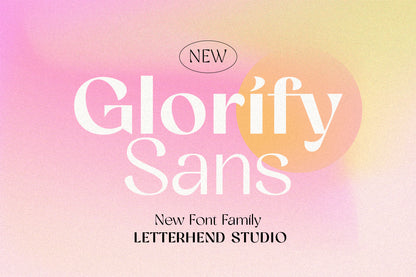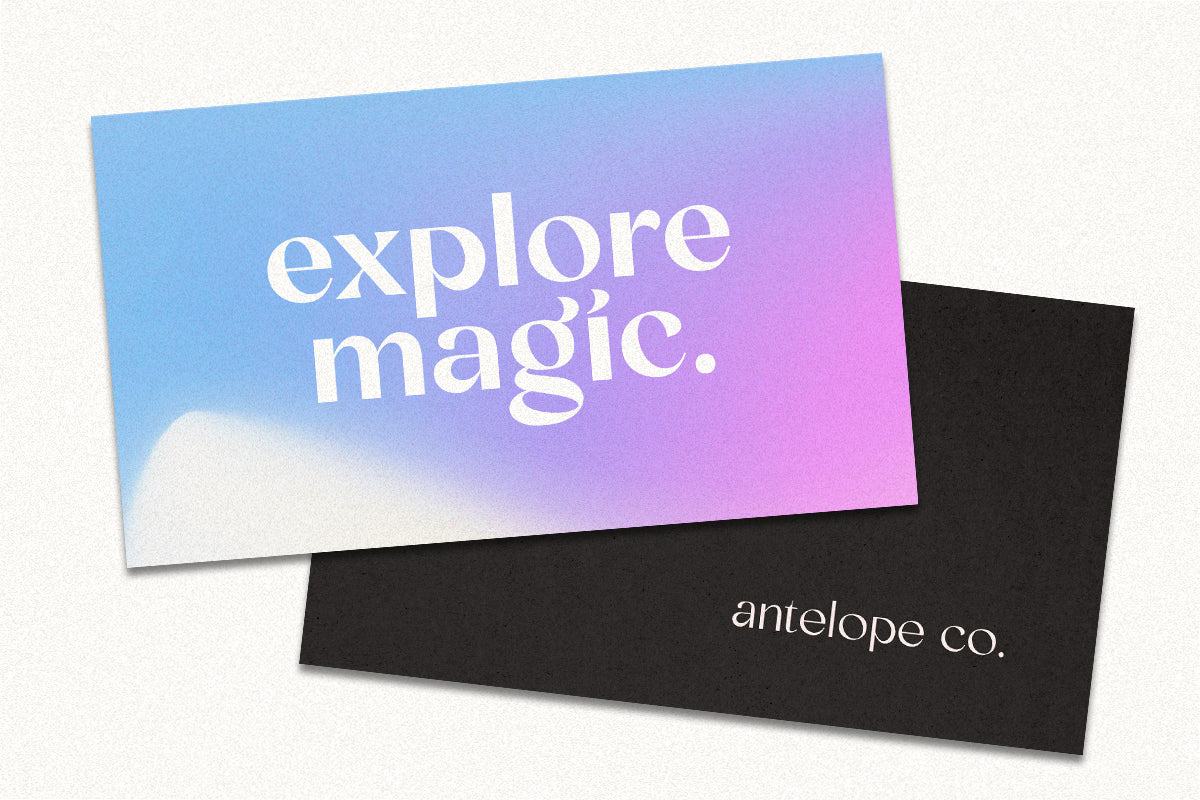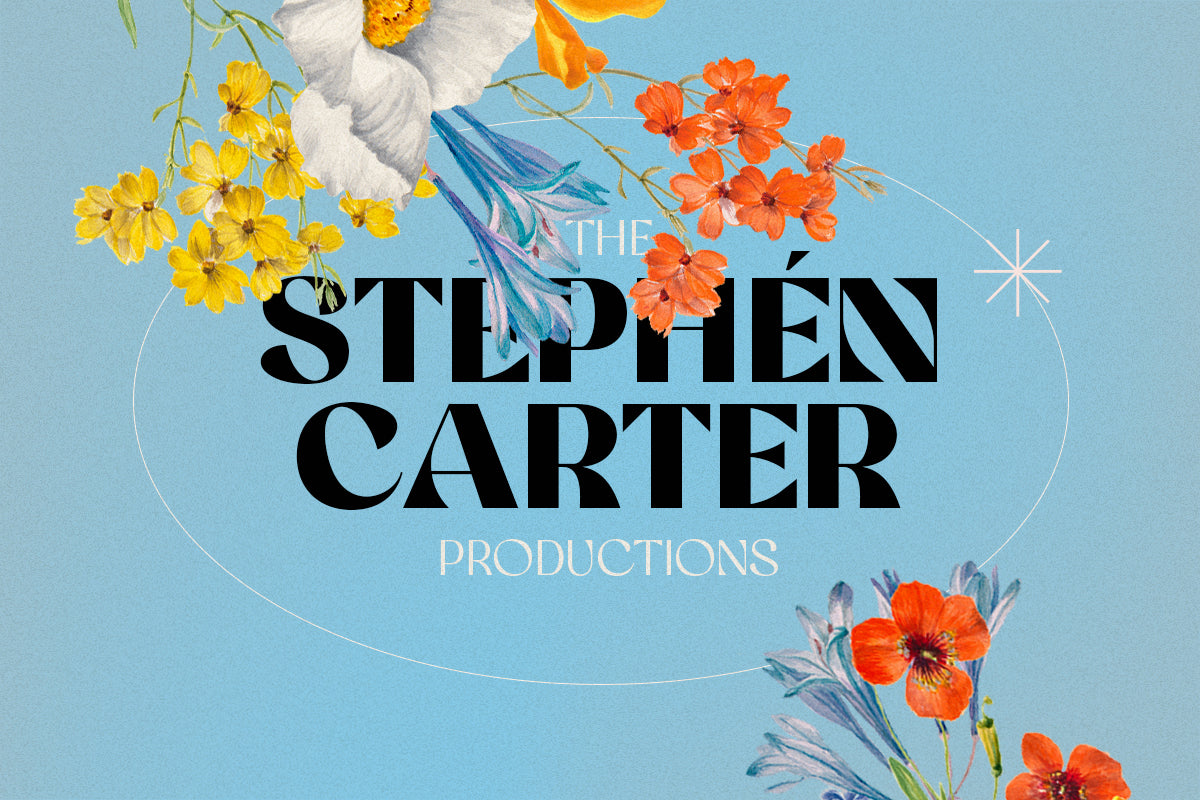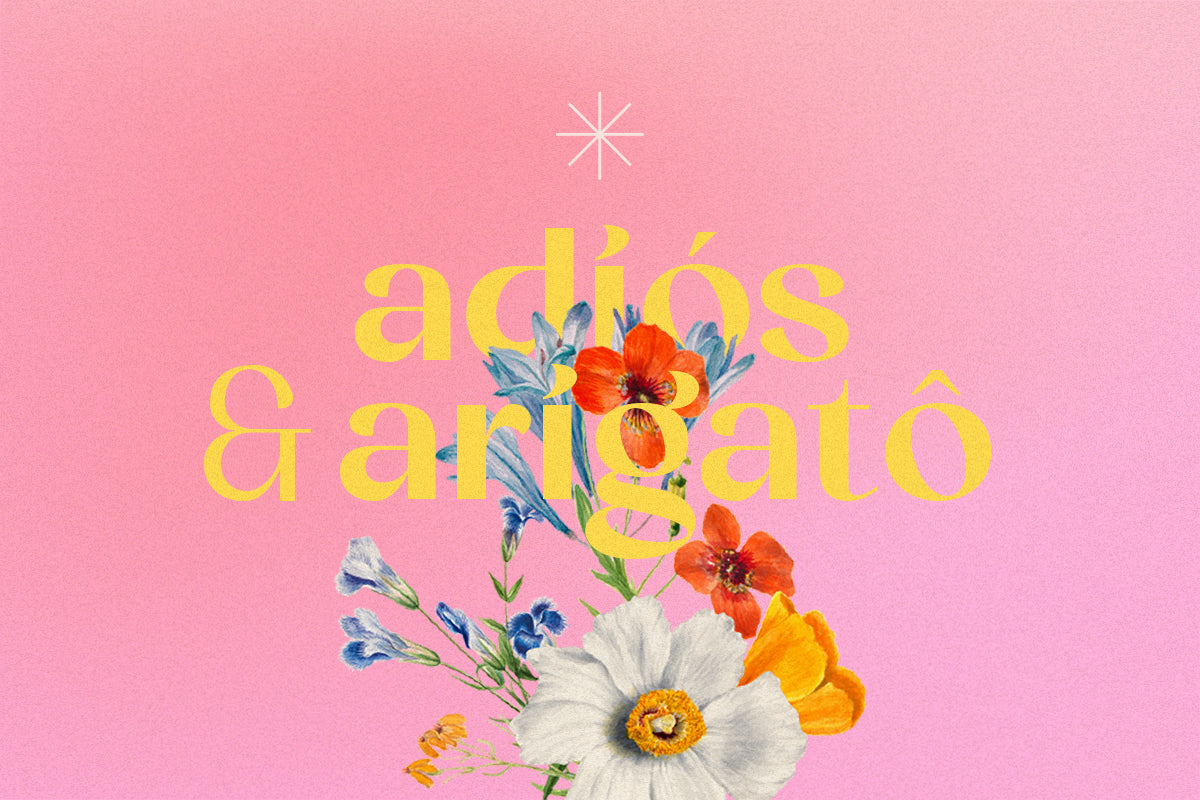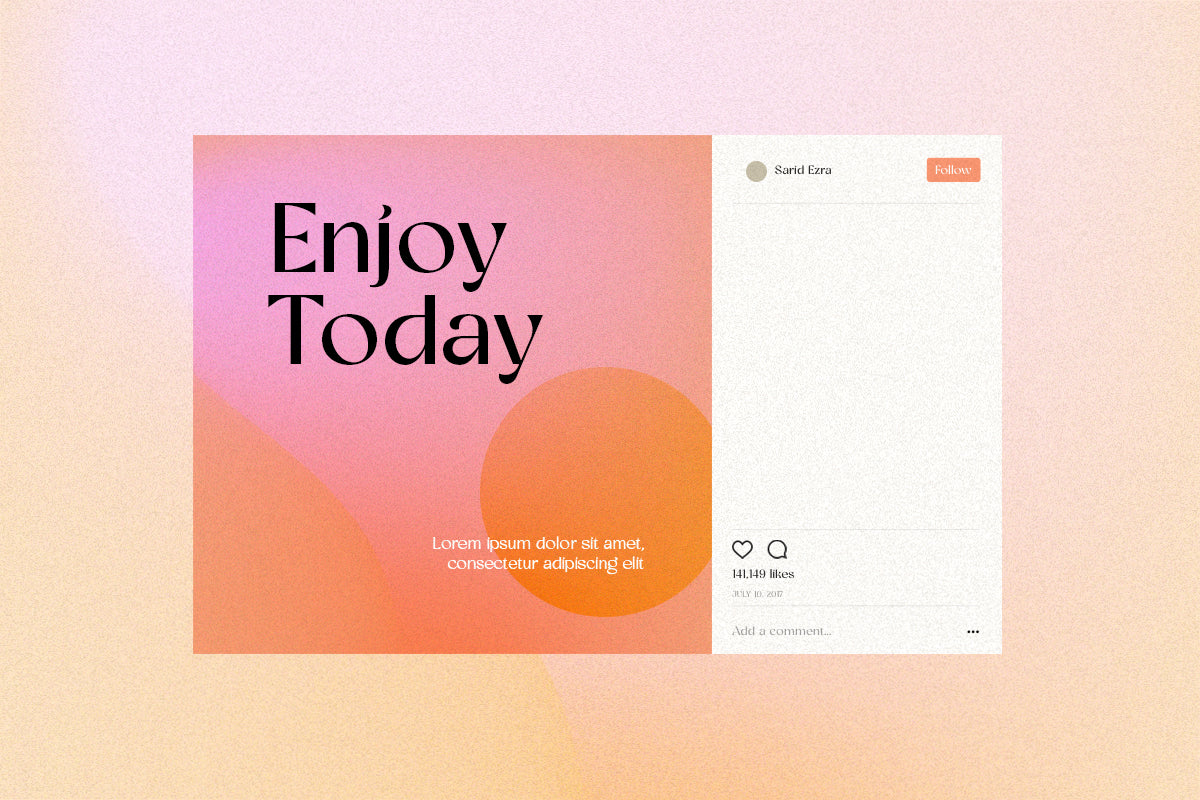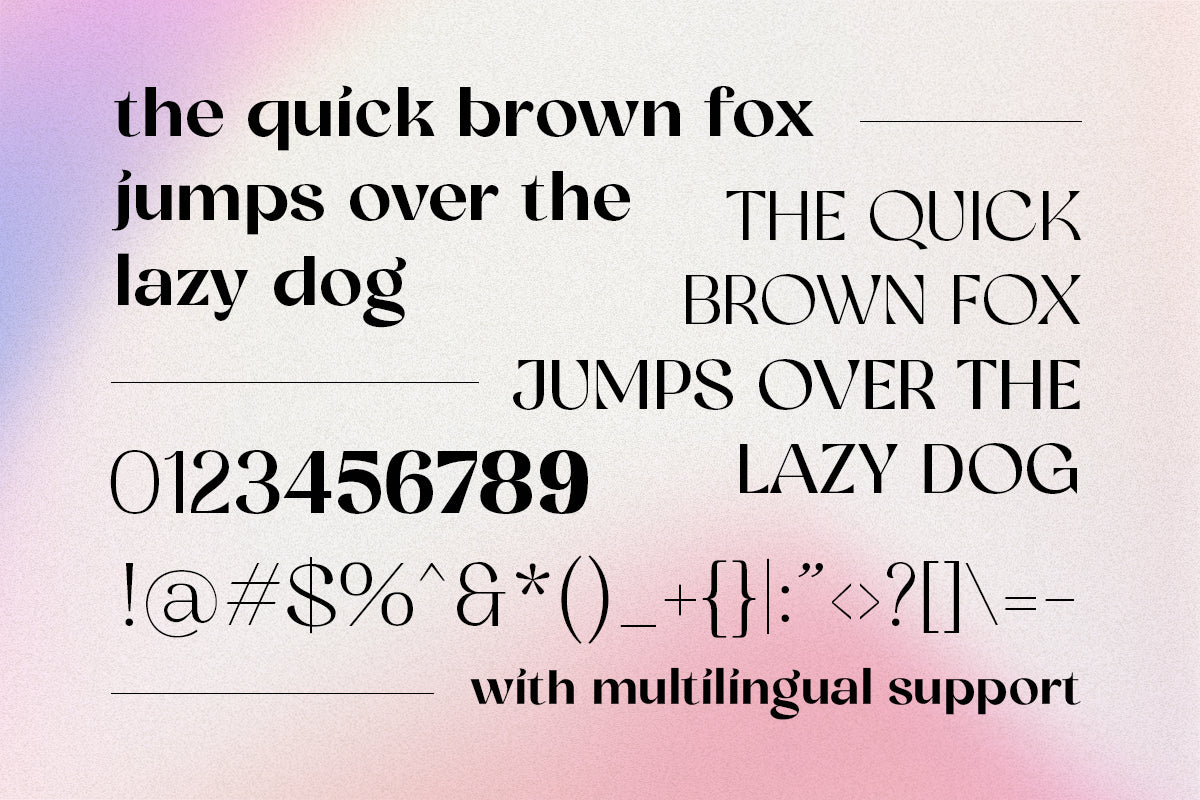
Glorify Sans - 8 Weight +ITALIC
Now updated with a brand-new Italic version, Glorify Sans offers even more versatility and expressive potential—perfect for emphasizing style and tone with ease. Already purchased it? No worries — just re-download the files from your purchase history to get the updates for free!
Glorify Sans is a sophisticated sans serif with many weight styles to choose from. You will get 8 weight styles which you can play around with to match your project, whether for a standout headline, or for a tagline, you name it.
Features :
8 weight style
uppercase & lowercase
numbers and punctuation
multilingual
alternates & ligatures